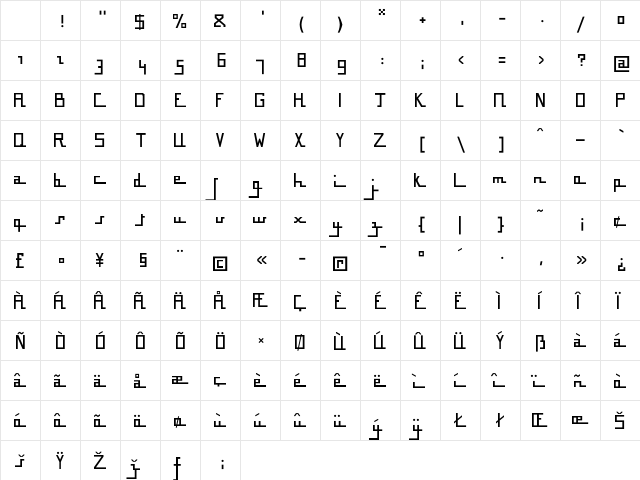
BousniCarre LT Std Medium Regular
Designer: Bachir Soussi Chiadmi
Design Context for BousniCarre LT Std Medium
BousniCarre LT Std Medium is a composed and adaptable typeface that performs quietly and consistently across a wide range of design contexts. Its slender proportions lend an understated elegance to any composition.